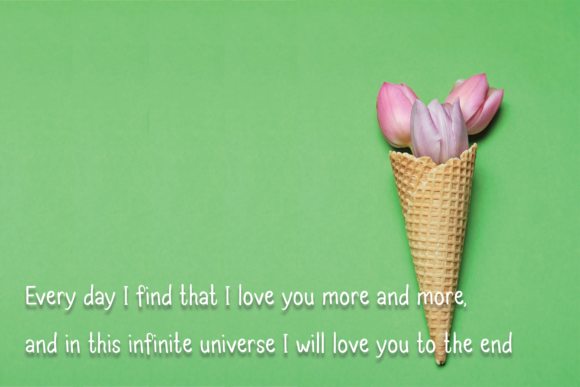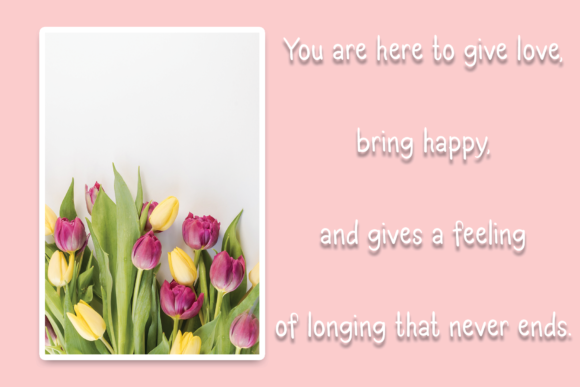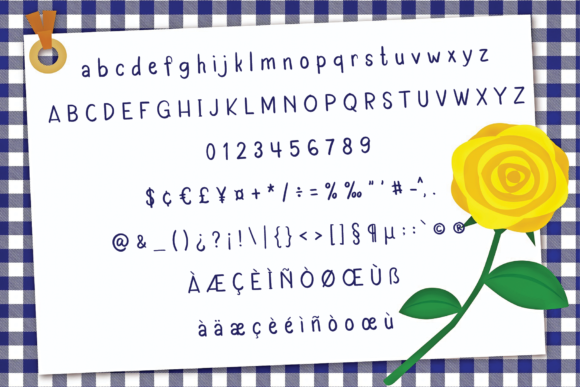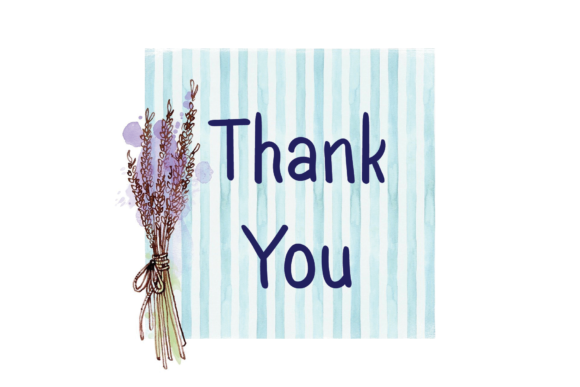
Introduction to My Wife Font
Do you ever find yourself rummaging through your design files, desperately searching for that perfect font to bring your creative project to life? I know I do. Recently, I stumbled upon the charming My Wife Font, a delightful handwritten font that has quickly become my go-to choice for all my design needs.
What I love about My Wife Font is its clean and natural aesthetic, making it the perfect fit for a wide range of creative projects, from social media graphics to DIY crafts. With its transparent background and high-quality design, this font is a valuable resource for designers looking to add a personal touch to their work.
Key Features of My Wife Font
- High-quality design resource: My Wife Font is a beautiful, elegant script font perfect for creative projects.
- Transparent background: This font features a transparent background, making it ideal for use on images with complex backgrounds.
- High-resolution design: My Wife Font is available in a high-resolution format (300 DPI), making it suitable for use in print and digital projects.
- Unique characteristics: This font features a unique, hand-drawn design with subtle flair and elegance, making it perfect for wedding invitations, quotes, and other creative projects.
Honest Review: My Wife Font
I was excited to dive into My Wife Font, a supposedly high-quality design resource. Upon closer inspection, I found both impressive and frustrating aspects.
- Transparency: The font comes with a transparent background, making it easy to use on various creative projects.
- Unique design: The font’s unique style adds a touch of personality to any design project.
- Limited character set: The font seems to have a limited character set, which might be a problem for designers who need to use specific characters.
- Lack of versatility: While the font is great for certain creative projects, it might not be suitable for more formal or professional designs.
Overall, I think My Wife Font is a great addition to any designer’s toolkit, but it’s essential to understand its limitations. If you’re looking for a unique, high-quality font for a creative project, this might be the perfect choice. However, if you need a more versatile font for a professional project, you might want to consider other options.
To get the most out of My Wife Font, use it on a transparent background to create a visually appealing design. You can also experiment with different font sizes and colors to create a unique look.
My Wife Font is ideal for use in creative projects such as logos, business cards, and social media graphics. It’s also great for use in presentations and documents where a stylish font is needed.
Yes, My Wife Font is designed to be used with a transparent background. The font’s design is optimized for use with a transparent background, making it perfect for creative projects that require a high level of design flexibility.
Is My Wife Font a high-quality design resource?
Yes, My Wife Font is a high-quality design resource. It’s designed by a professional designer and has been tested for compatibility with a wide range of design applications. The font is also optimized for use with a variety of screen resolutions and devices.